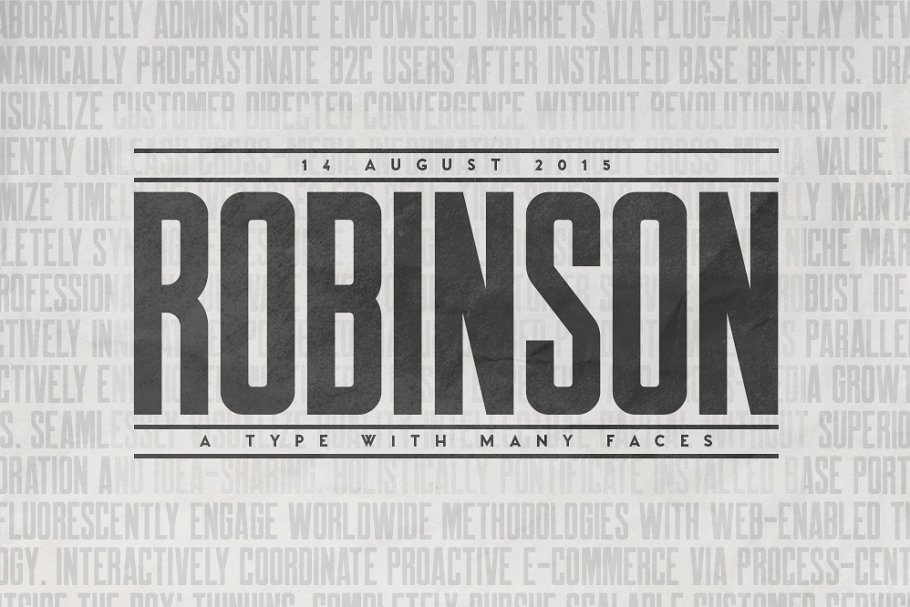
Are you tired of using the same old boring fonts in your digital magazines? Look no further than Robinson Typeface! This font, created by the talented Mehmet Tugcu, is the perfect addition to your collection. Robinson is part of the Vintage Collection, which means it's not just any ordinary font. It's a font inspired by vintage newspaper titles, making it perfect for those who want to add a touch of nostalgia to their designs.
Robinson Typeface is not only visually appealing but also practical. It includes 18 styles, ensuring that you'll find the perfect fit for any project. Additionally, it comes with uppercase multilingual letters, numbers, and punctuation. With meticulous kerning pairs and rounded corners, your titles will have a clean and professional look.
So why choose Robinson Typeface? Because it's the best font for digital magazines! Its vintage-inspired design is sure to capture the attention of your readers, making your magazine stand out from the rest. It's perfect for creating bold and attractive titles, followed by smaller text that's easy to read. And with its versatility, it's not just limited to magazines - it's also great for posters, advertisements, and more!